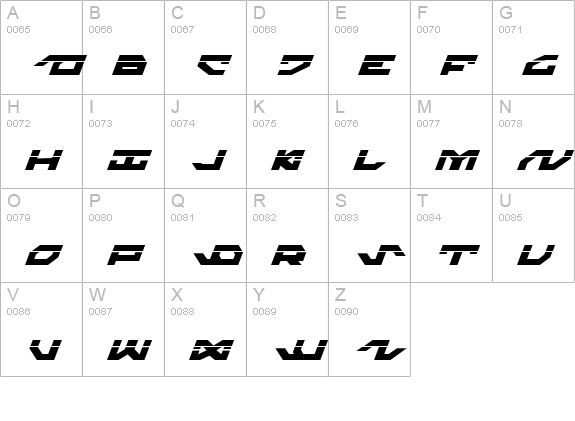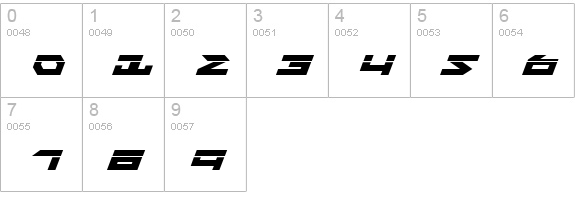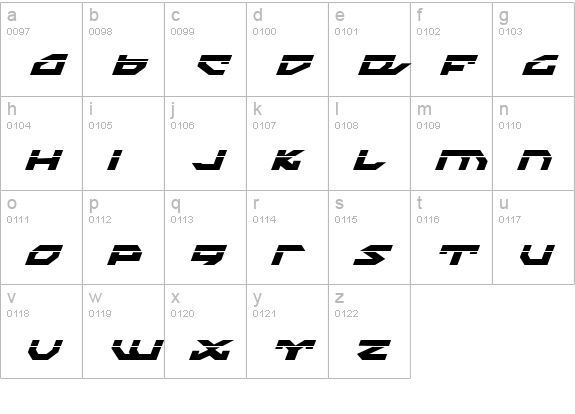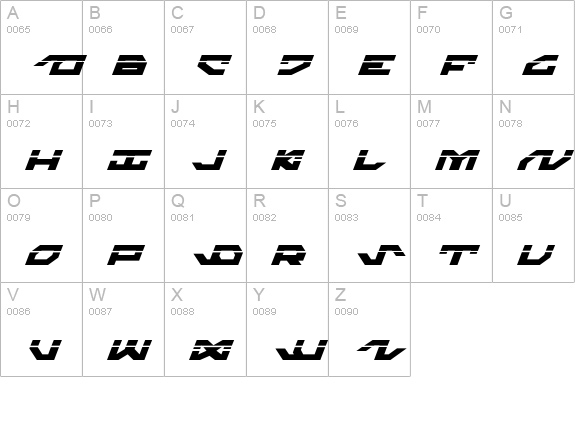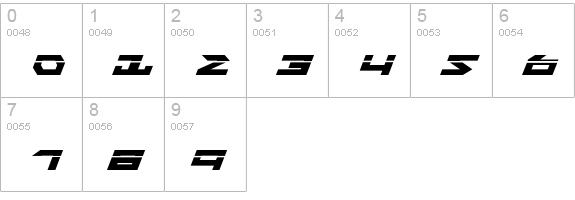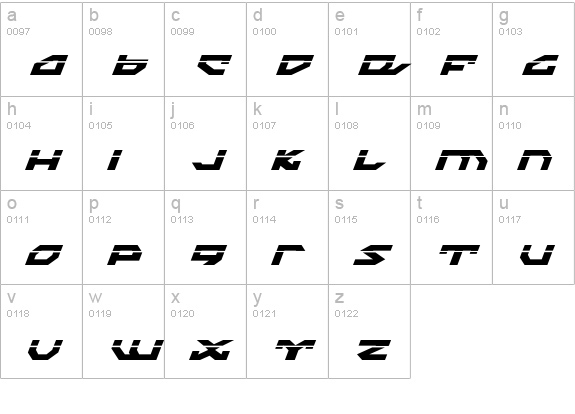
Nightrunner Laser Italic is a distinctive, italic variant in the Nightrunner typeface family \xE2\x80\x94 well suited to design and typography projects.
Nightrunner Laser Italic is a sleek and modern font that exudes a sense of sophistication and edginess. Its sharp, angular lines and unique laser-inspired design make it perfect for projects that require a bold and futuristic look. The italic styling adds a touch of elegance and dynamism to any text. This versatile font is ideal for a wide range of design projects, from logos and branding to posters and websites. Its distinctive appearance is sure to make any text stand out and leave a lasting impression on viewers. The best part? Nightrunner Laser Italic is available for free download at FontsMarket.com. This means you can easily access this eye-catching font and use it in your projects without any cost. Don't miss out on the opportunity to enhance your designs with this striking typeface. Download Nightrunner Laser Italic today and take your creations to the next level.